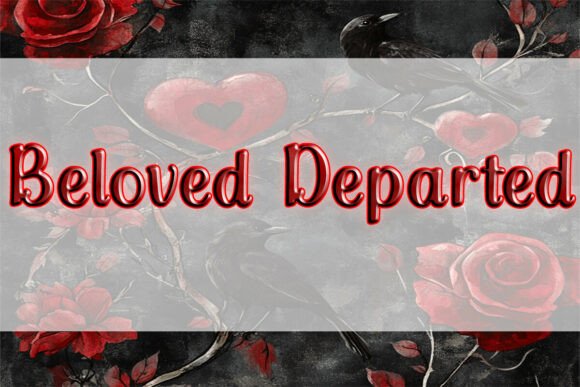
An Honest Review: What I Love and What to Consider
- ✅ Readability: Beloved Departed shines with its clear and elegant letterforms, making it perfect for body text and headlines.
- ✅ Versatility: From branded apparel to sticker designs, magazine layouts, and greeting cards, this font adapts seamlessly.
- ✅ Elegance: It brings a touch of sophistication to any project, making it ideal for Cricut projects, social media graphics, and poster designs.
- ✅ OpenType Features: Enjoy access to a range of stylistic alternates, glyphs, and ligatures to add a personal touch to your designs.
The Not-So-Perfect: 🤔
- ⚠️ Limited Contrast: While the font’s elegance is a strength, it may not be the best choice for designs requiring high contrast between text and background.
- ⚠️ Not Ideal for Tiny Text: While readable, extremely small sizes (less than 8pt) might make the font appear slightly less crisp.
The Story Behind Beloved Departed: A Designer’s Inspiration
Beloved Departed was crafted with the goal of creating a timeless yet versatile font. Inspired by classic typography and modern design needs, its creator aimed to produce a font that would serve as a reliable tool for creatives. The result is a font that balances elegance with practicality, making it suitable for a wide range of applications.
| Is Beloved Departed suitable for body text? | Yes, its readability makes it an excellent choice for body text in both digital and print formats. |
| Does Beloved Departed support multiple languages? | Yes, it includes a range of characters and accents to support various languages. |
Beloved Departed is more than just a font; it’s a creative partner that brings elegance and versatility to your projects. Whether you’re designing for digital platforms, crafting with your Cricut, or creating engaging marketing materials, this font is sure to enhance your work. Explore its features, experiment with its capabilities, and discover how Beloved Departed can elevate your designs.